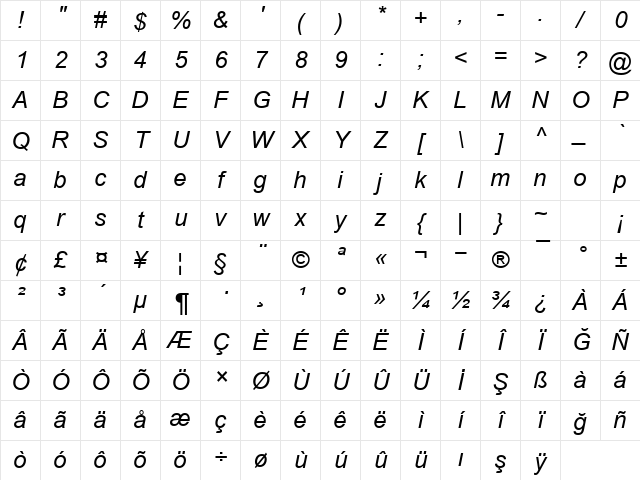
TR Arial Italic
TR Arial Family
Design Context for TR Arial
TR Arial is a composed and adaptable typeface that performs quietly and consistently across a wide range of design contexts. The slanted form adds forward momentum and visual energy.
Pro Tip: Use TR Arial for emphasis, pull quotes, and subheadings where its slanted energy can add rhythm to the layout.